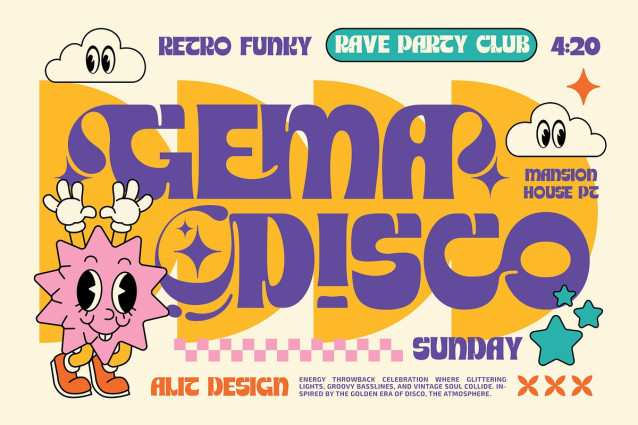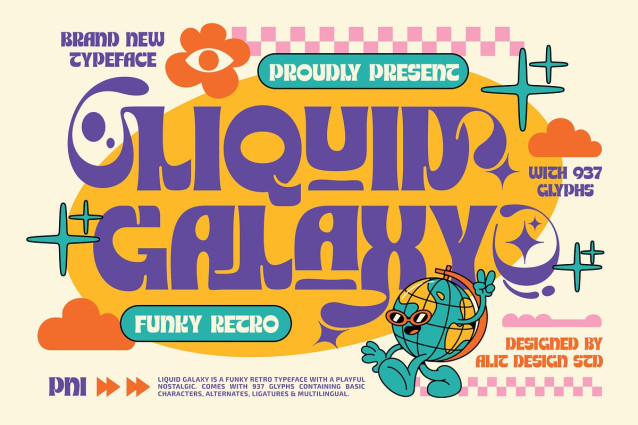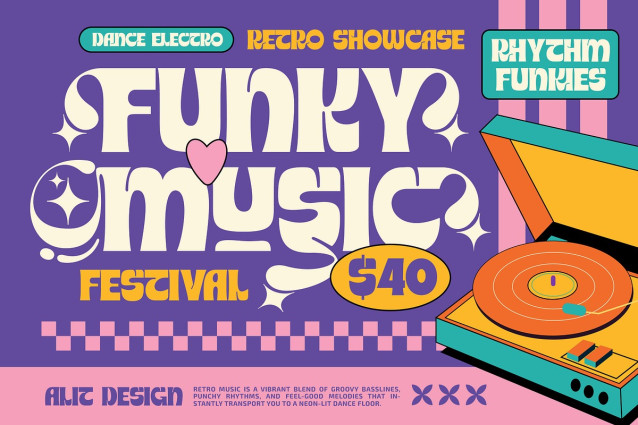
Liquid Galaxy Font
Liquid galaxy Font it’s a colorful flash of rhythm, nostalgic swagger, and timeless cool. Inspired by the carefree energy of vintage clubbing expos, 70s psychedelic posters, and neon memories, this typeface is built to make every beat of your design feel alive. With its bold, sweeping curves and playful bounce, Liquid Galaxy delivers a massive dose of retro personality while maintaining modern versatility.
Whether you are designing a standout streetwear collection, a funky music festival poster, or eye-catching packaging, Liquid Galaxy provides all the tools you need to create a whole mood.